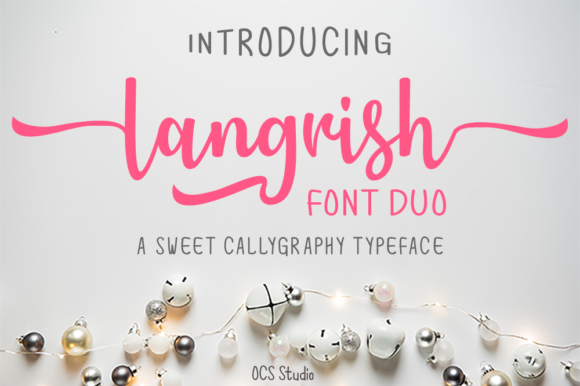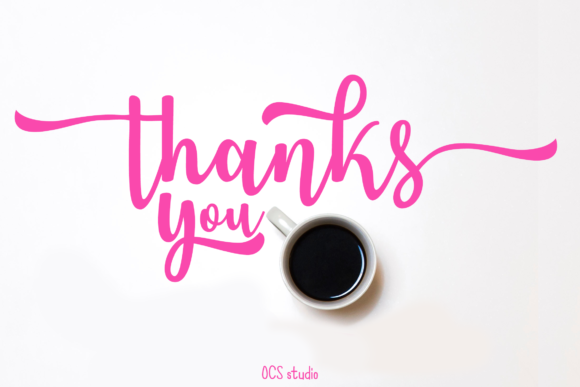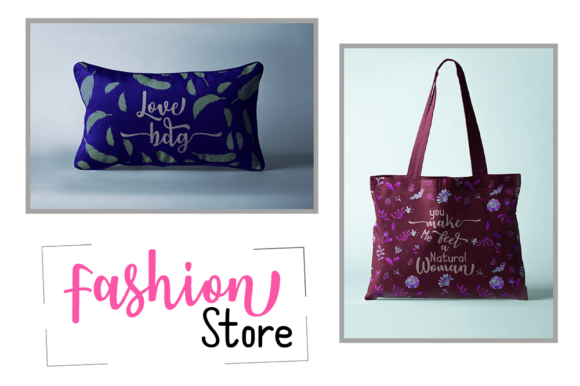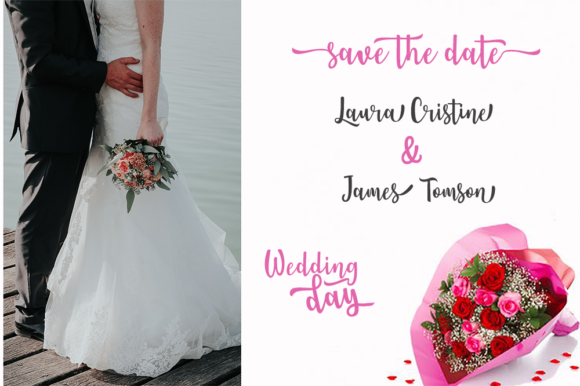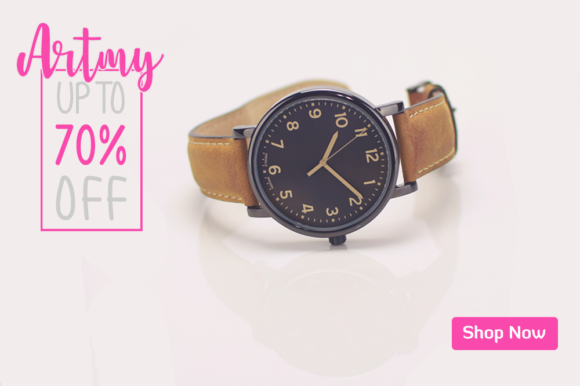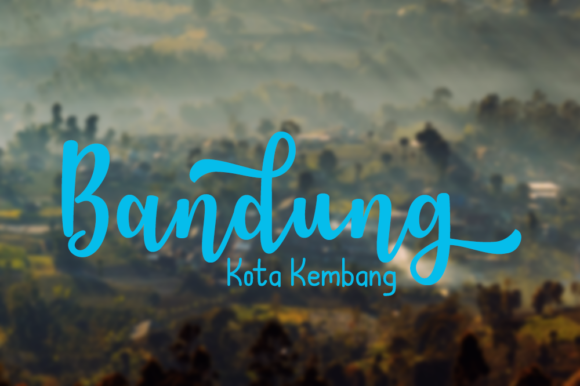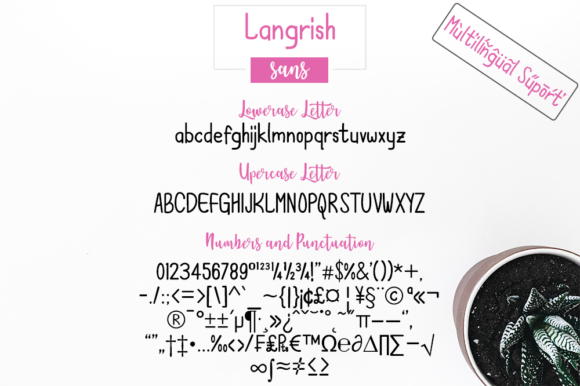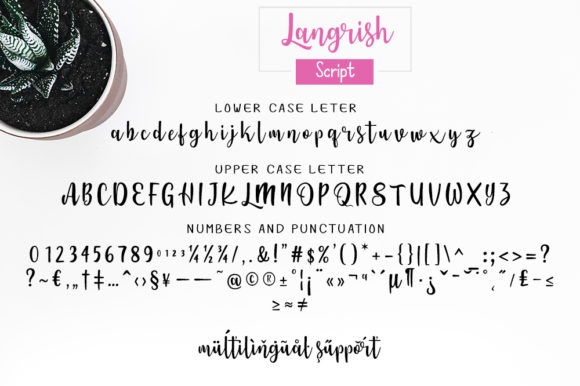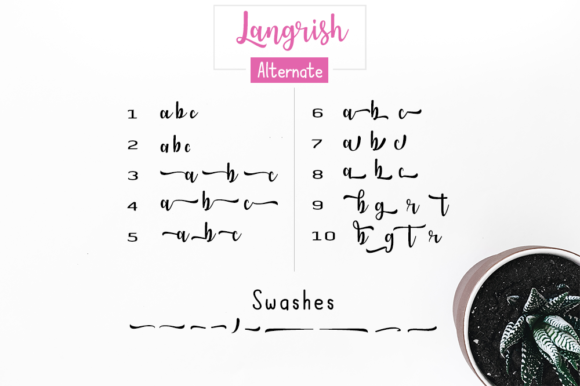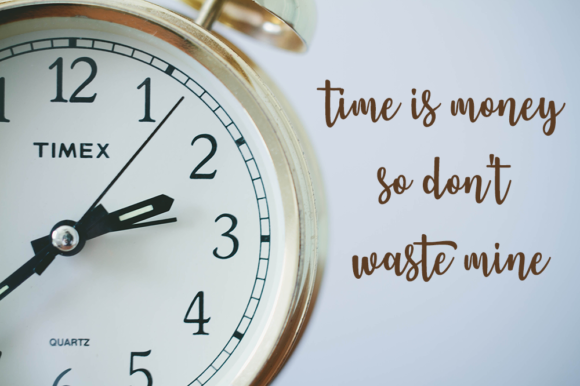
Langrish Duo Font
About Langrish Duo Font
Langrish is a sweet and fun font duo with an incredible charm. Fall in love with its youthful personality, and turn any design project into a stunner!